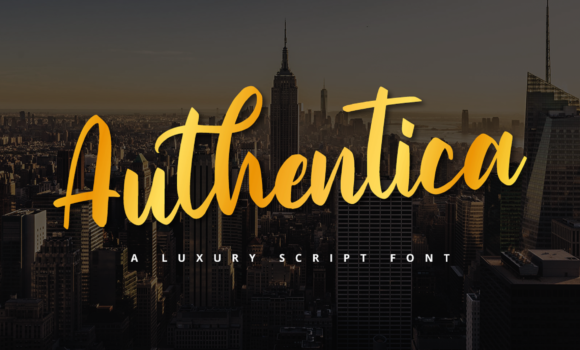
authentica
Authentica Font – Free Download Introduction to Authentica Font Authentica is a spectacular handwritten font. 📸 Preview Gallery 6 images 📌 Product Name Authentica Font 👤 Author Graphue 📂 Category Explore ⬇️ Download Authentica Font FREE Free Download • Instant